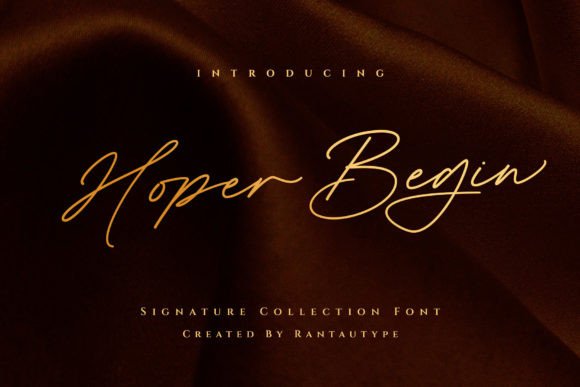
Hoper Begin Font: Elevate Your Business Presence with Sophistication
In the world of business, making a lasting impression is crucial. One way to achieve this is through the use of professional and sleek typography. This is where the Hoper Begin font comes in – a modern and sophisticated business signature font designed to add a touch of refinement to your projects. With its clean lines and contemporary style, Hoper Begin exudes confidence and reliability, making it an ideal choice for business signatures and branding.
Key Features of Hoper Begin Font
• Sleek and Sophisticated Design: Hoper Begin boasts a modern and clean design that is perfect for businesses looking to make a professional statement.
• Clean Lines and Contemporary Style: The font’s design is characterized by clean lines and a modern aesthetic, making it perfect for businesses that want to appear polished and professional.
• Ideal for Business Signatures and Branding: Hoper Begin is specifically designed for business use, making it perfect for signatures, branding, and other professional applications.
The Benefits of Using Hoper Begin Font
Using Hoper Begin font can bring numerous benefits to your business. Here are a few:
• Enhanced Professionalism: With its sleek and sophisticated design, Hoper Begin can help elevate your business’s professional image.
• Increased Legibility: The font’s clean lines and modern style make it easy to read, ensuring that your messages are conveyed clearly.
• Versatility: Hoper Begin can be used in a variety of applications, from business signatures and branding to marketing materials and presentations.
• Unique and Memorable: The font’s unique design and ligatures make it stand out from more traditional fonts, helping your business to be more memorable.
The Many Uses of Hoper Begin Font
Hoper Begin font is a versatile and flexible font that can be used in a variety of applications. Here are a few examples:
• Business Signatures: Use Hoper Begin to create professional and sleek business signatures that make a lasting impression.
• Branding: The font’s modern and sophisticated design makes it perfect for branding applications, such as logos and letterheads.
• Marketing Materials: Use Hoper Begin to add a touch of professionalism to your marketing materials, such as brochures and flyers.
• Presentations: The font’s clean lines and modern style make it perfect for presentations, adding a touch of sophistication to your slides.
Why Choose Hoper Begin Font?
With so many fonts available, why choose Hoper Begin? Here are a few reasons:
• Unique Design: Hoper Begin boasts a unique and modern design that sets it apart from more traditional fonts.
• Professional Image: The font’s sleek and sophisticated design can help elevate your business’s professional image.
• Versatile: The font can be used in a variety of applications, from business signatures and branding to marketing materials and presentations.
Tips for Using Hoper Begin Font
Here are a few tips for using Hoper Begin font:
• Use it Consistently: Use Hoper Begin consistently across all your business materials to create a cohesive and professional image.
• Experiment with Ligatures: Take advantage of the font’s ligatures and glyphs to add a touch of creativity to your designs.
• Pair it with Other Fonts: Experiment with pairing Hoper Begin with other fonts to create a unique and visually appealing design.
• Use it in Digital and Print Applications: Hoper Begin can be used in both digital and print applications, making it a versatile font for all your business needs.
In conclusion, Hoper Begin font is a sleek and sophisticated business signature font that can help elevate your business’s professional image. With its clean lines and modern style, this font exudes confidence and reliability, making it perfect for business signatures and branding. Its PUA encoding makes it easy to access all the amazing glyphs and ligatures, giving you more creative freedom. Whether you’re looking to create professional business signatures, branding materials, or marketing materials, Hoper Begin is an excellent choice.